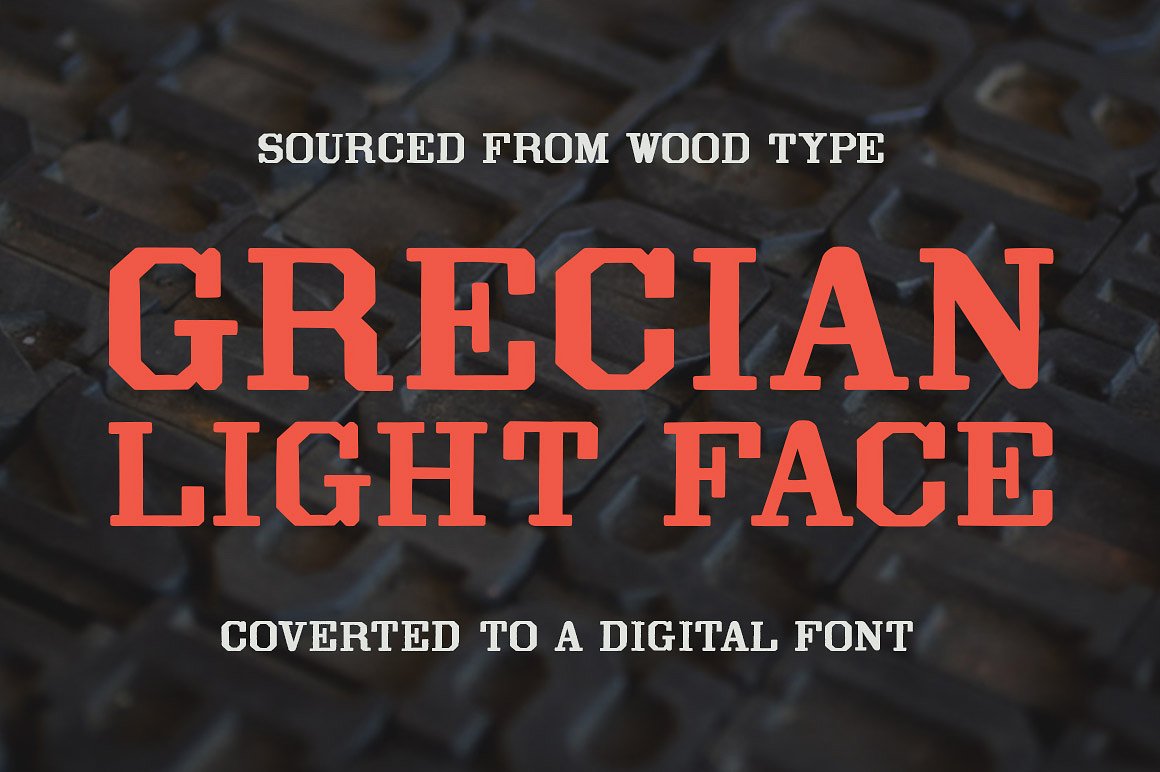
Grecian Light Face
Grecian Light Face Font
Grecian typefaces typically feel towering and rough-hewn, and are also quite frequently condensed. However, this Grecian is blessed with a wider stance, which might explain its friendlier tone. Yes Grecian Light Face may be old and rugged, but it also has the time to sit down and chat a while.